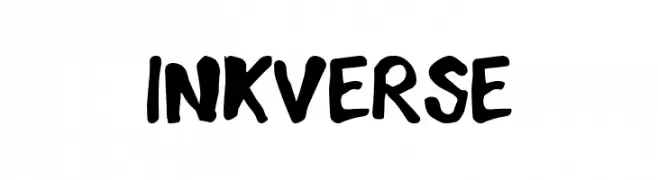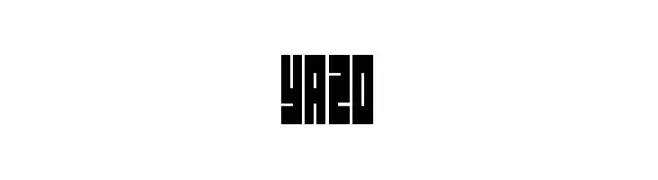
A bold, hand-drawn font with an expressive, brush-like style.
A bold, brush-textured font with an artistic and dynamic appearance.
A modern, italic font with a sleek and dynamic style.
A geometric, modern font with clean lines and a bold presence.
A bold, geometric font with a modern, futuristic aesthetic.
A grunge-style italic font with a hand-drawn, artistic flair.
A grunge-inspired, hand-drawn font with a casual and artistic feel.
A bold, expressive brush-style font with dynamic, hand-painted strokes.
A rugged, hand-drawn font with a gritty, organic texture.